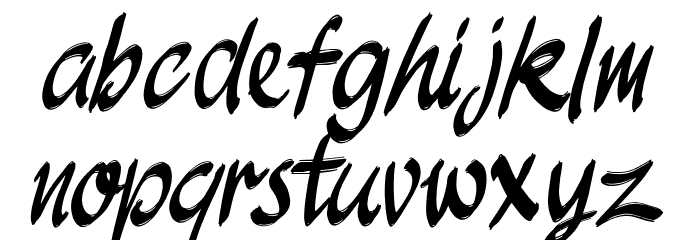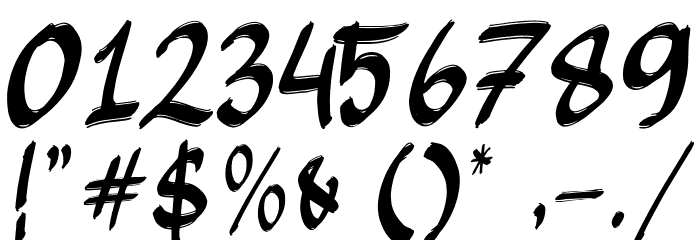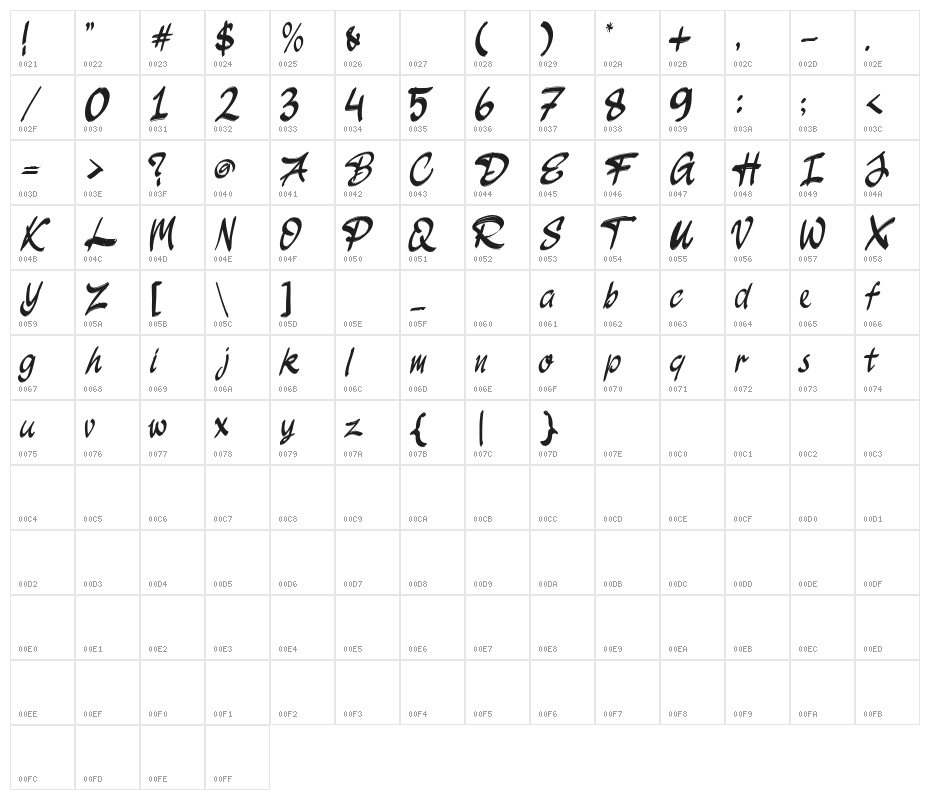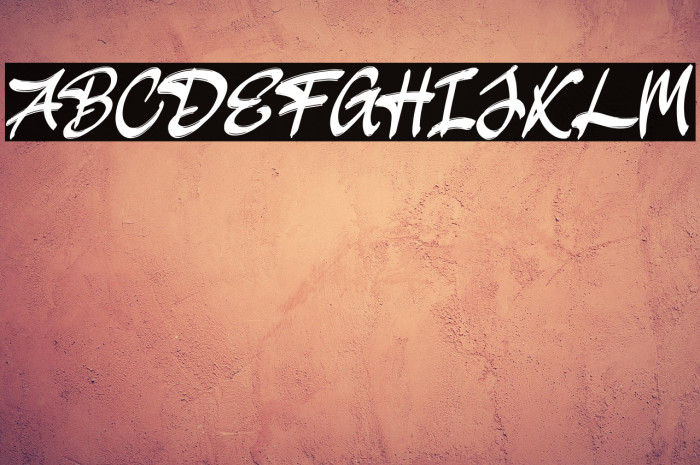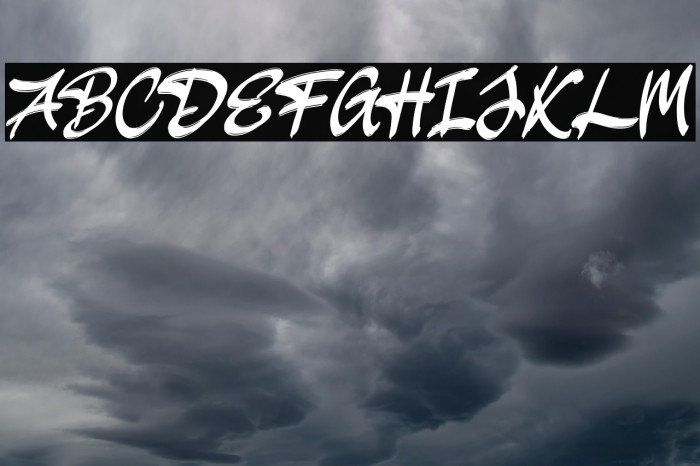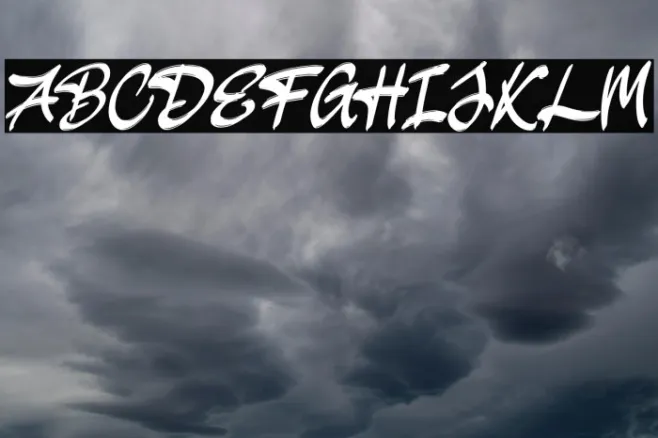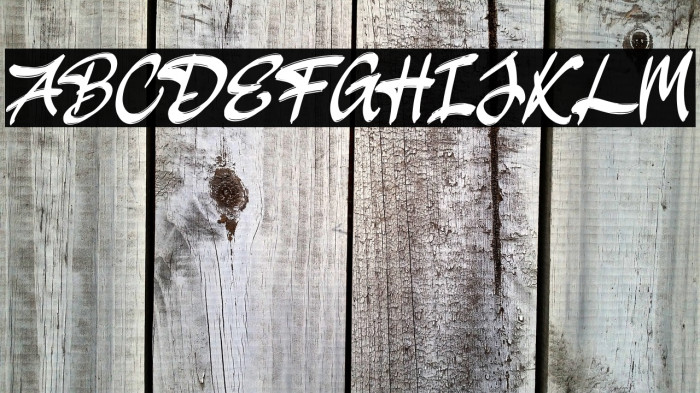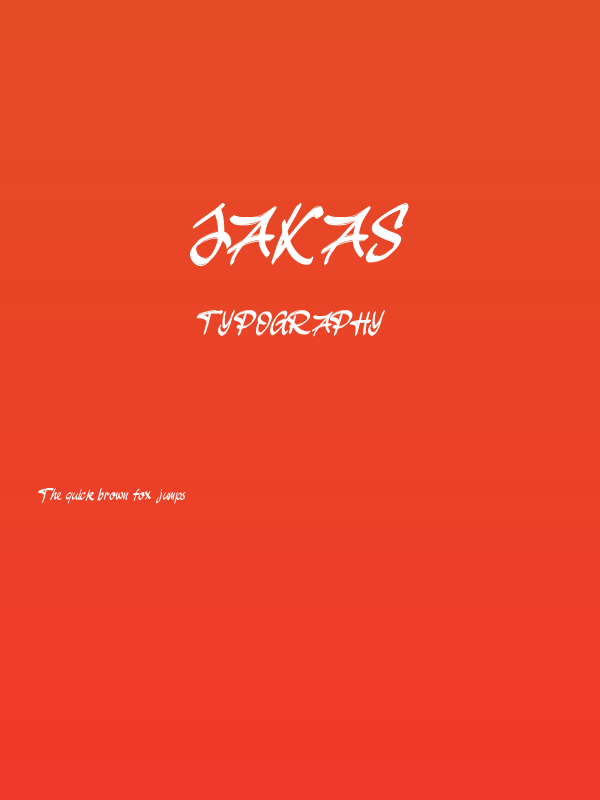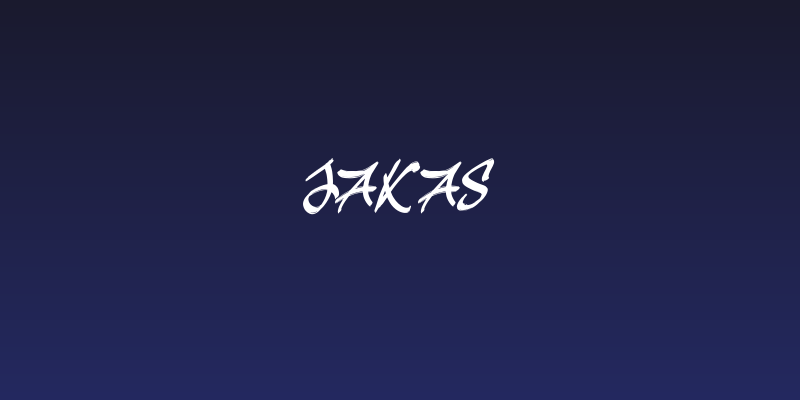
JakAs Font
This font features a bold, expressive script style with a dynamic and energetic flow. The characters are designed with a brush-like appearance, giving them a hand-painted feel. The uppercase letters are slightly larger and more pronounced, while the lowercase letters maintain a consistent style with smooth curves and sharp edges. The numbers and special characters follow the same aesthetic, ensuring a cohesive look across all elements. The overall design is both artistic and legible, making it suitable for creative and impactful designs.
A bold, expressive script font with a dynamic, brush-like style.
- Font: JakAs
- Proposed Projects: Ideal for branding, logos, posters, and creative projects that require a bold, artistic touch.